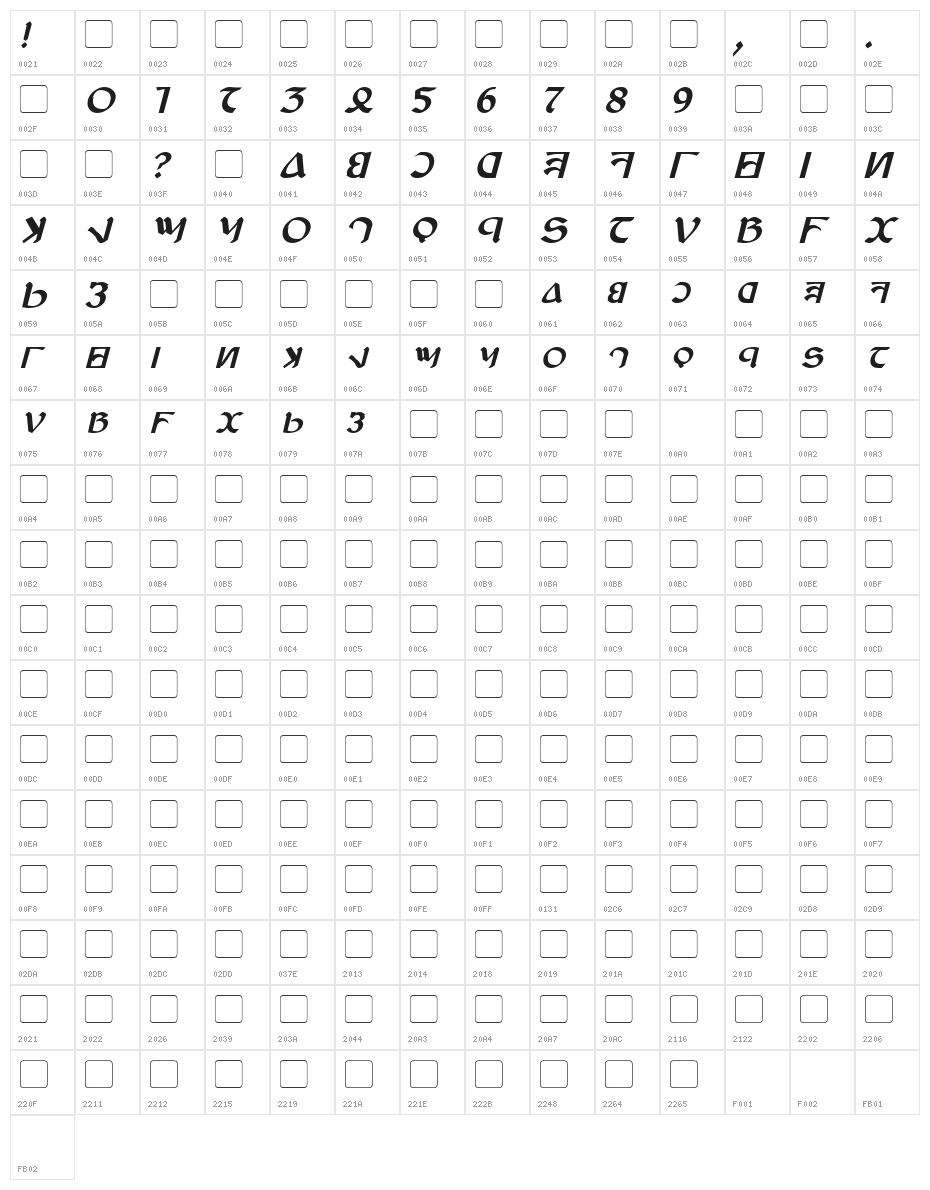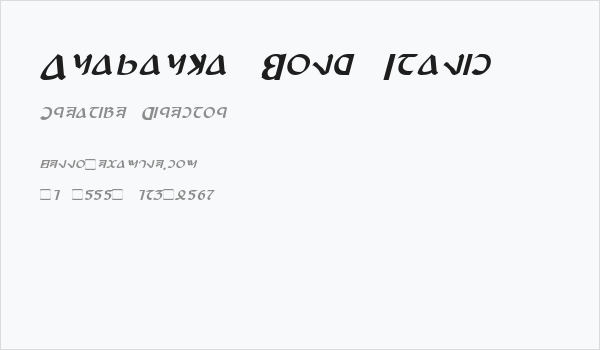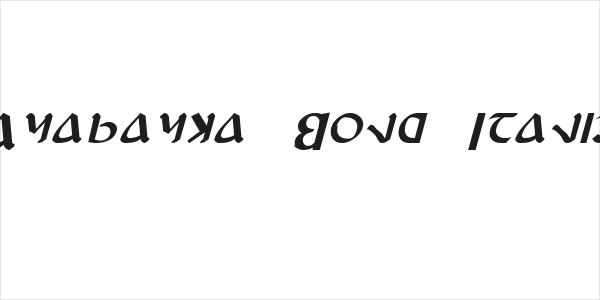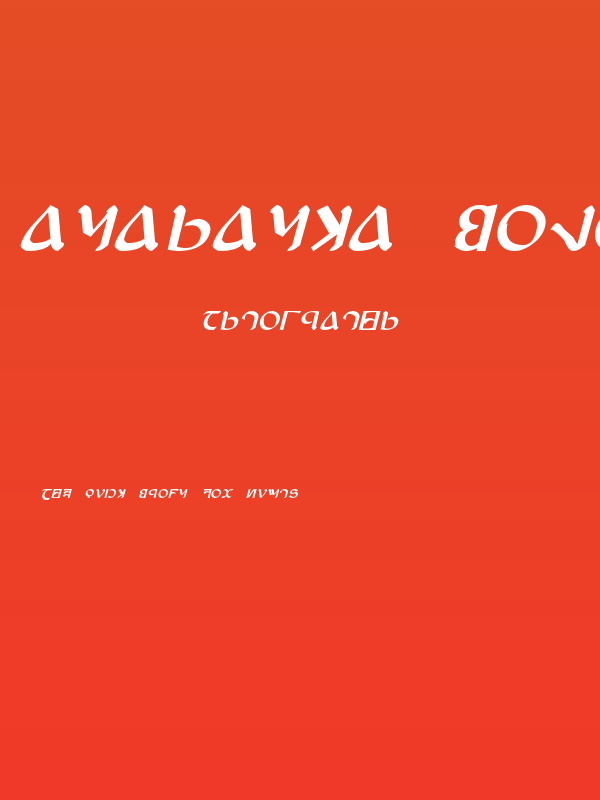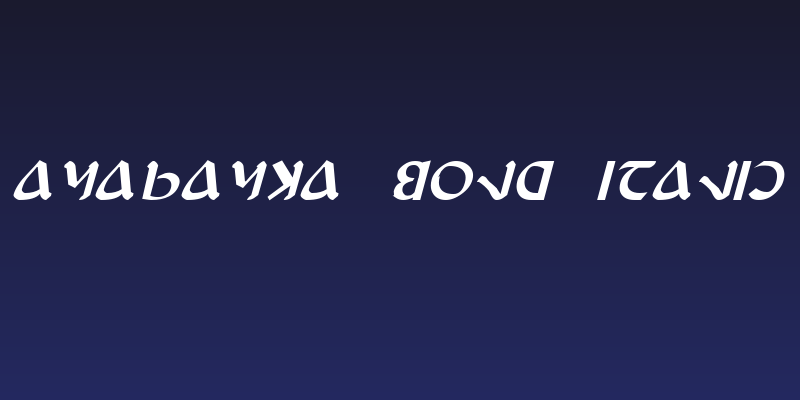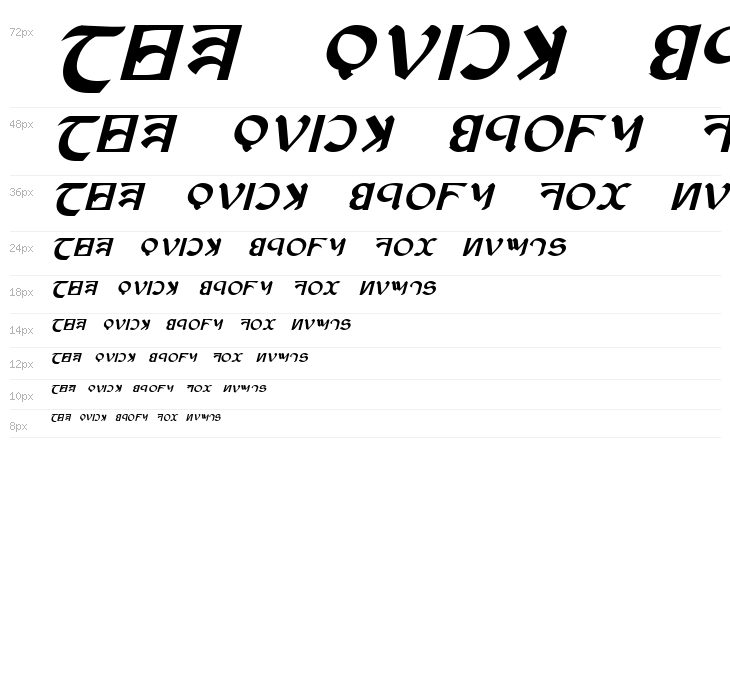
Anayanka Bold Italic Font
Anayanka Bold Italic Description
This font exhibits a bold and italicized style with a distinctive flair. The characters are designed with a dynamic slant, giving them a sense of movement and energy. The strokes are thick and consistent, contributing to a bold appearance. The letterforms are slightly condensed, which enhances the compact and impactful look. The font features unique angular cuts and curves, adding a touch of modernity and sophistication. The numbers maintain the same stylistic elements, ensuring uniformity across all characters. This font's boldness and italic nature make it suitable for attention-grabbing designs.